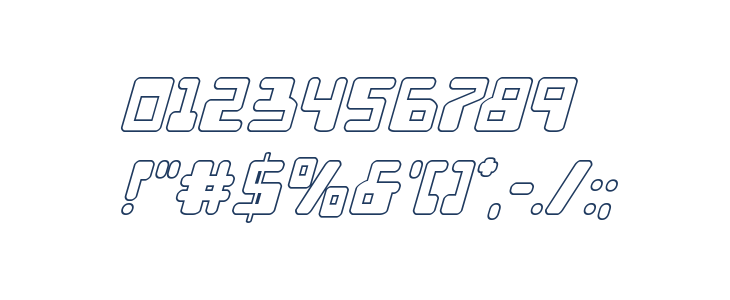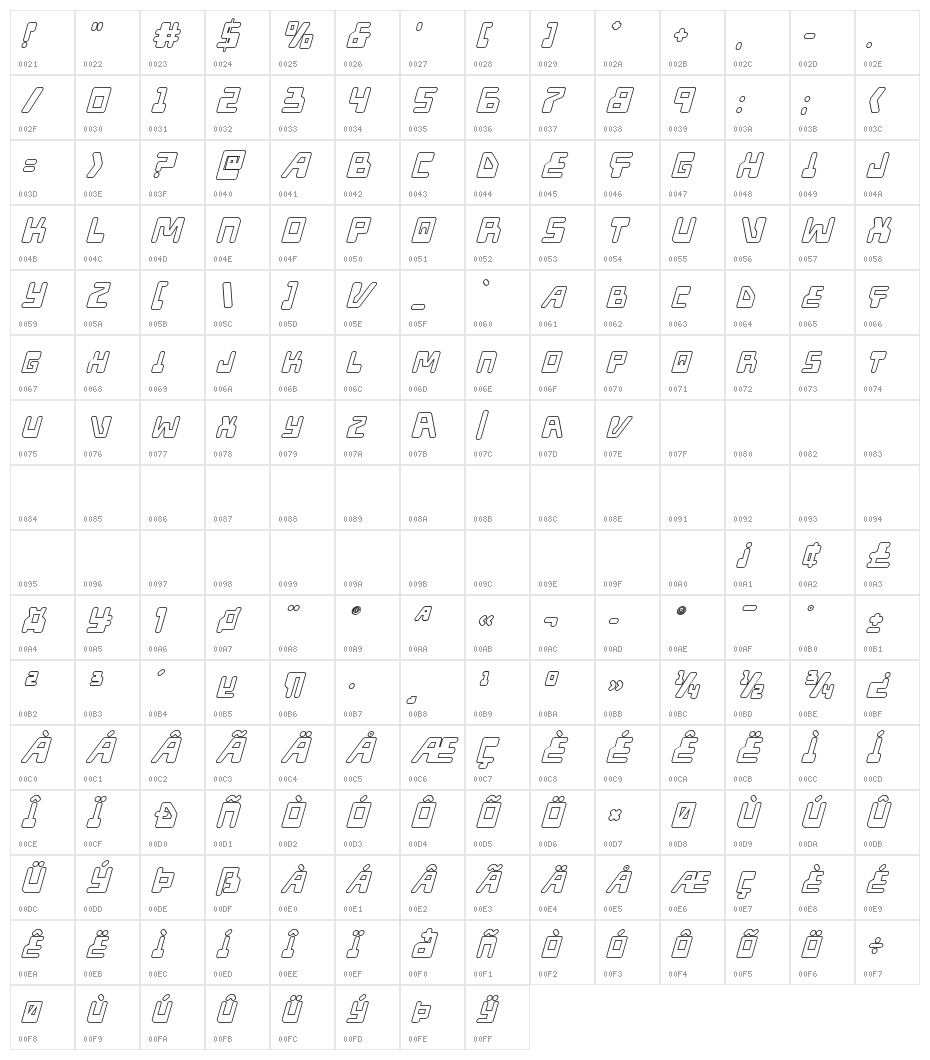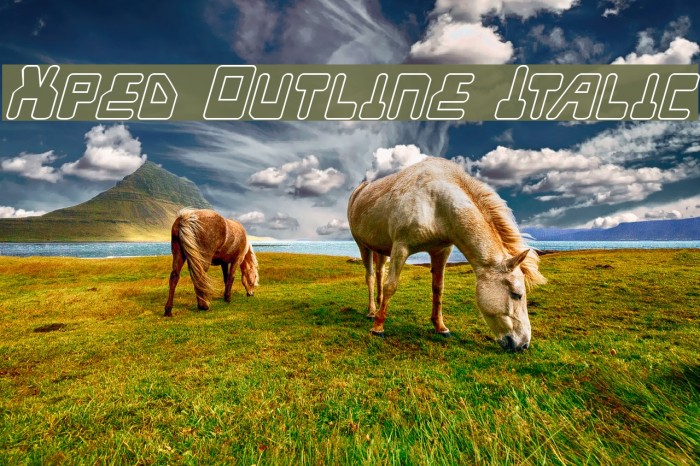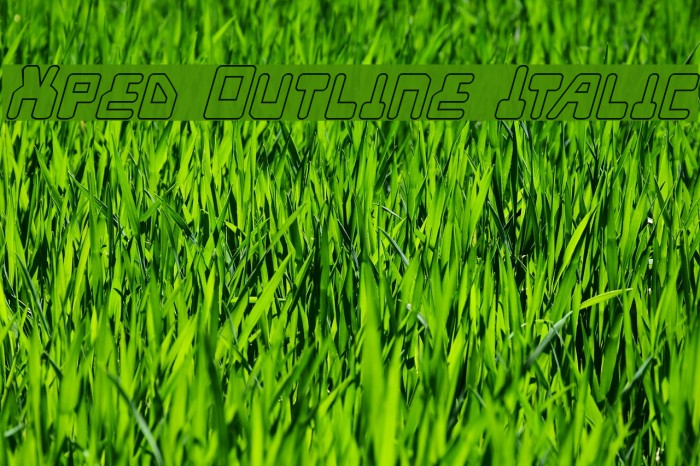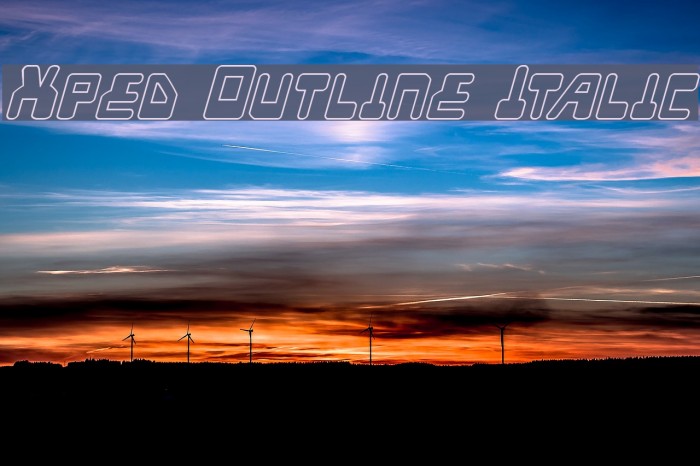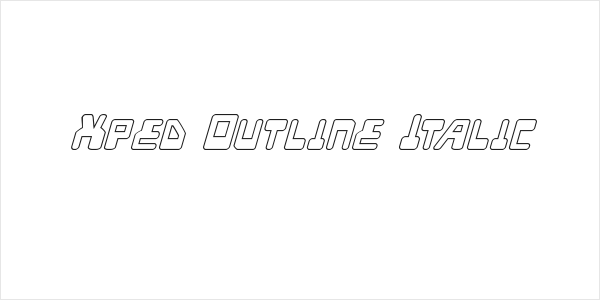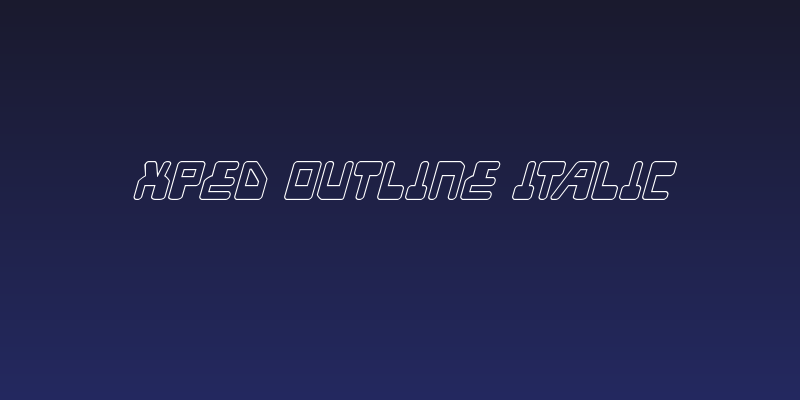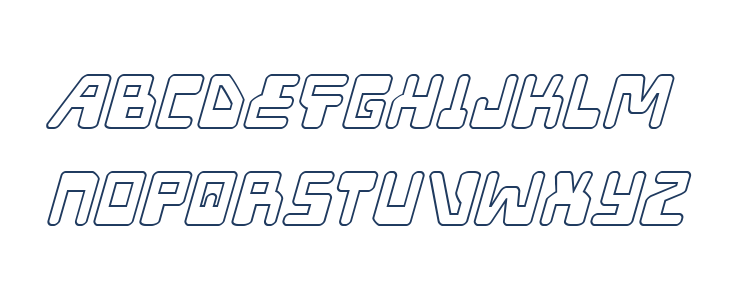
Xped Outline Italic Font
Xped Outline Italic Description
This font features a modern, geometric outline style with a distinct italic slant, giving it a dynamic and futuristic appearance. The characters are constructed with clean, bold lines that form an open outline, creating a sense of depth and dimension. The uppercase and lowercase letters maintain a consistent style, with angular edges and a uniform stroke width. The numerals and special characters follow the same design principles, ensuring a cohesive look across all glyphs. This font's unique outline and italicized form make it stand out, suitable for projects that require a contemporary and eye-catching typeface.